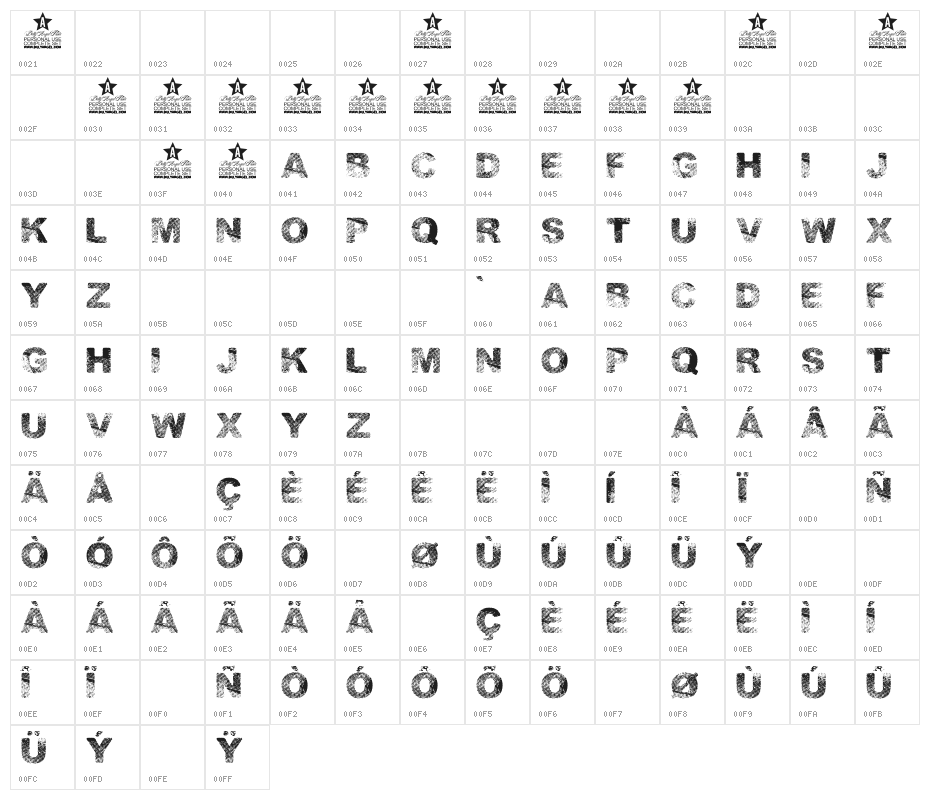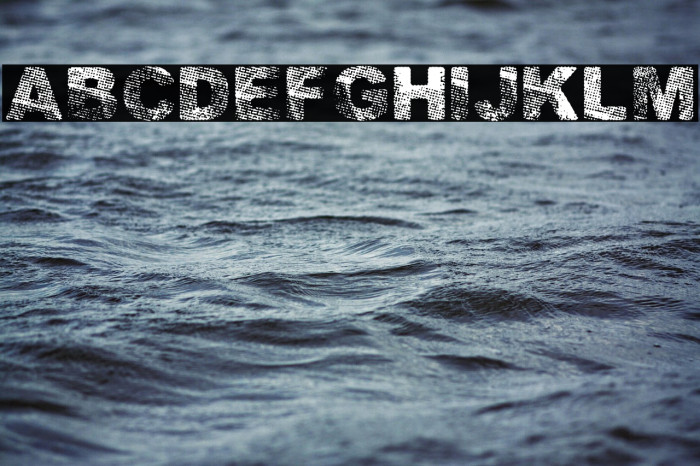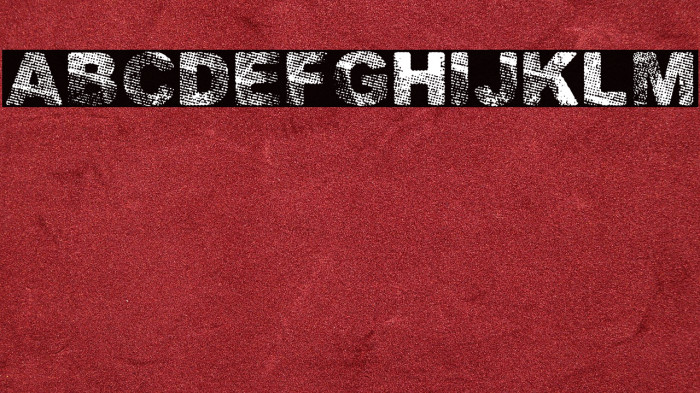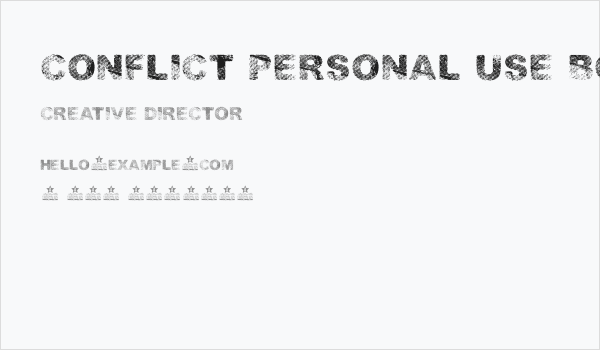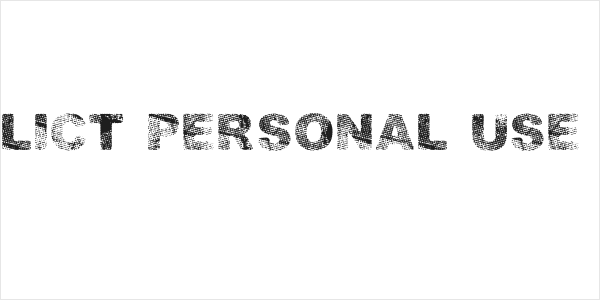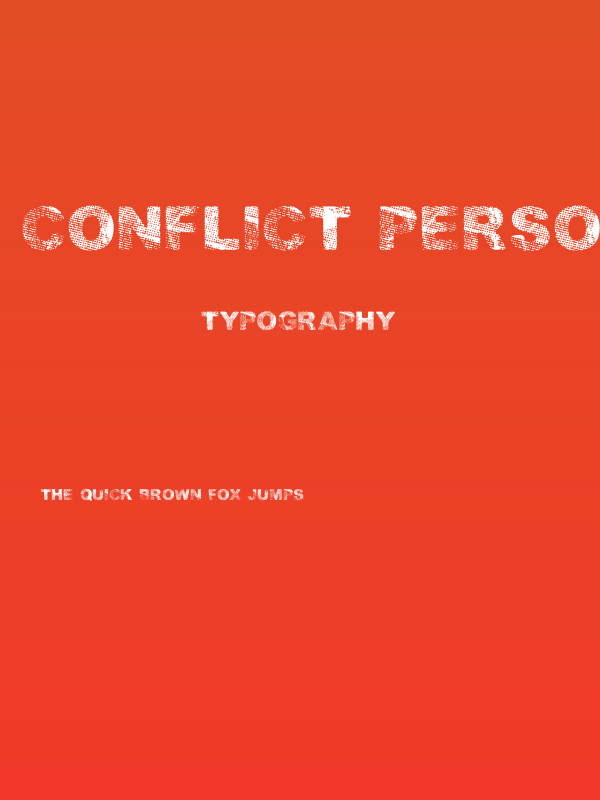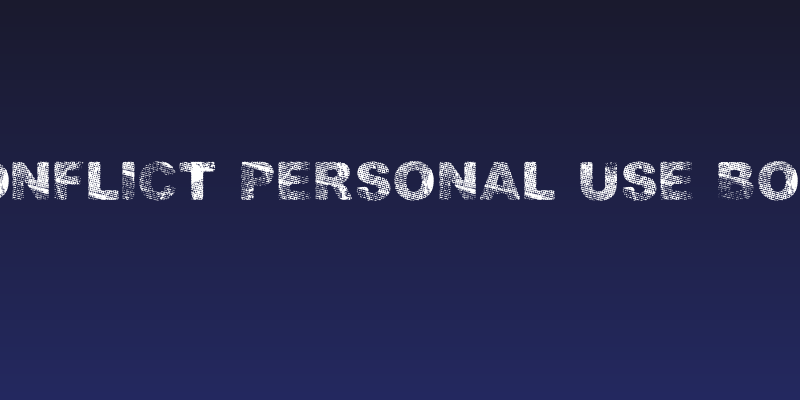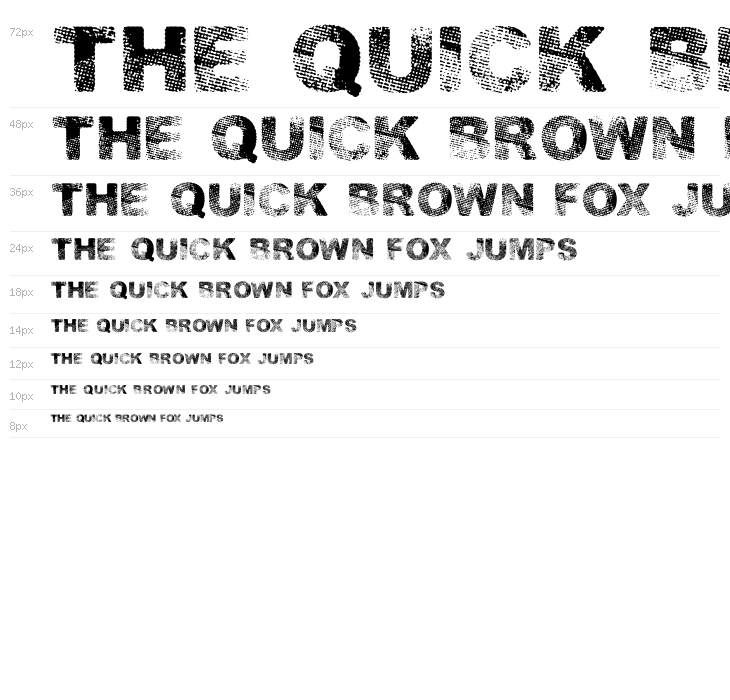
CONFLICT PERSONAL USE Bold Font
CONFLICT PERSONAL USE Bold Description
This font features a bold, distressed style with a textured, grunge appearance. The characters are uppercase and exhibit a rough, uneven surface that gives a sense of depth and dimension. The design is reminiscent of vintage or industrial aesthetics, making it suitable for projects that require a rugged or edgy look. The texture is consistent across all characters, providing a cohesive visual impact. This font is ideal for creating attention-grabbing headlines, posters, or branding materials that need a strong, impactful presence.
| Overall Style | Vintage, Industrial |
| Use Case | Headlines, Posters, Branding |
| Proposed Projects | Ideal for posters, branding, album covers, and any design needing a rugged, vintage feel. |